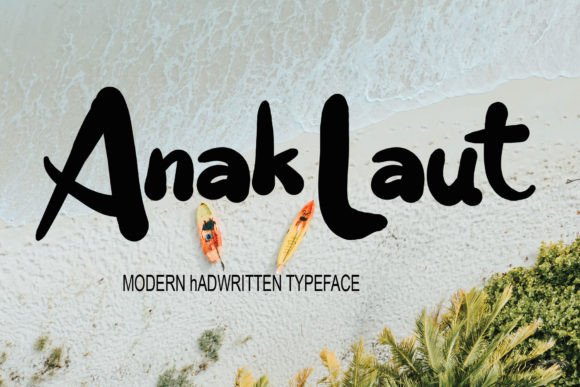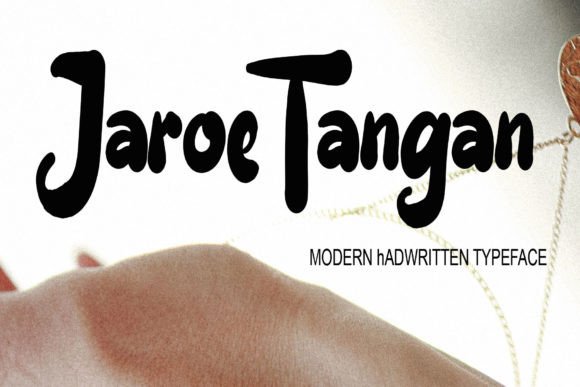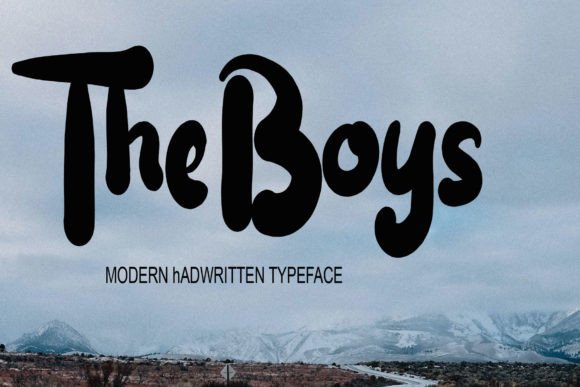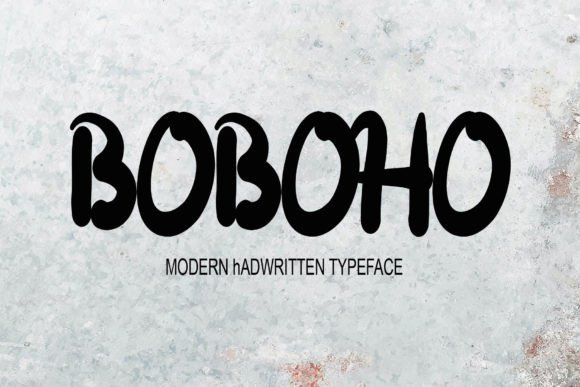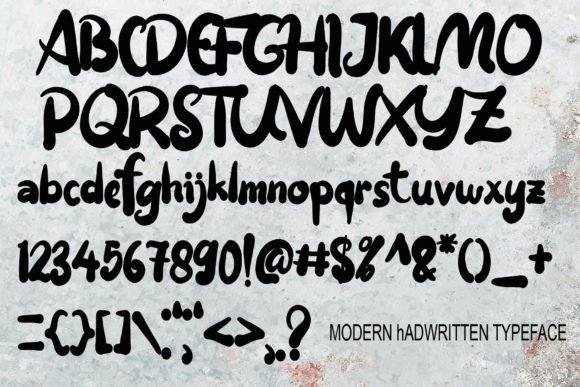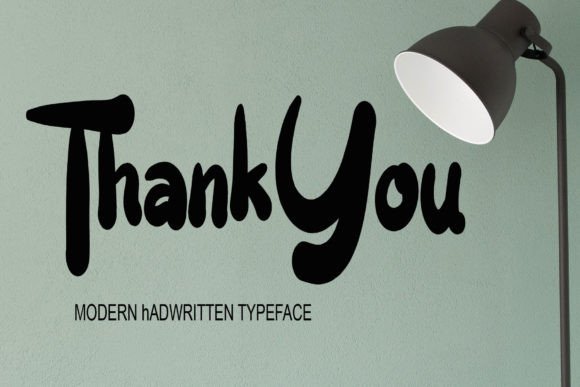
Gambatat Font
About Gambatat Font
**Gambatat Handwritten Font: Elevating Casual Chic in Your Designs**
The Gambatat font is a bold and casual handwritten typeface that brings a sense of relaxed chic to your design projects. Its bold, yet informal style can make your designs stand out. Here are some creative ways to use the Gambatat font:
1. **Logo Design:** Craft logos for casual and contemporary brands that want to convey a laid-back, approachable image. The boldness of the font makes it perfect for creating memorable logos.
2. **Apparel Branding:** Use the Gambatat font for clothing labels, hangtags, and apparel designs. Its casual chic style complements the fashion industry’s aesthetics.
3. **Product Packaging:** Create labels and packaging for artisanal or gourmet products. The font adds a touch of authenticity and a handmade feel to your packaging.
4. **Event Posters:** Design event posters and flyers for concerts, festivals, or art exhibitions. The bold and casual style of the font can capture the essence of the event.
5. **Cafe Menus:** Craft trendy and casual cafe menus, especially for modern coffee shops and eateries. The font’s boldness helps menu items stand out.
6. **Branding Collateral:** Use the font for business cards, letterheads, and other branding materials. It conveys a sense of approachability while maintaining a professional edge.
7. **Social Media Graphics:** Create attention-grabbing social media posts and banners. The bold Gambatat font adds impact to your visual content.
8. **Editorial Headlines:** Use the font for headlines and subheadings in magazines, newspapers, or online articles. It can give a fresh look to editorial layouts.
9. **Product Labels:** Design labels for a range of products, from beverages to skincare. The font’s bold and casual appearance can make your products more appealing.
10. **Quote Graphics:** Craft eye-catching graphics featuring quotes or inspirational phrases for social media sharing. The font’s boldness adds emphasis to the text.
11. **Packaging Labels:** Create labels for handmade or artisanal products like candles, soaps, or jams. The Gambatat font enhances the homemade charm.
12. **Poster Design:** Design posters for promotional purposes, whether for events, movies, or product launches. The font can make your poster designs pop.
13. **T-shirt Graphics:** Use the font to create trendy and stylish T-shirt designs. It’s perfect for conveying a casual and relaxed vibe.
14. **Artistic Signage:** Design signage for businesses or events, such as pop-up shops, food trucks, or art exhibitions. The font adds character to signage.
15. **Personal Branding:** If you’re a freelancer or entrepreneur, consider using the Gambatat font for your personal branding. It can reflect your casual yet confident approach.
16. **Product Advertisements:** Incorporate the font into advertisements for products and services that want to appeal to a youthful and casual audience.
The Gambatat handwritten font’s bold and casual style is versatile and can bring a sense of relaxed chic to a wide range of design projects. Its ability to strike a balance between boldness and informality makes it an excellent choice for creating memorable visuals with a modern twist.